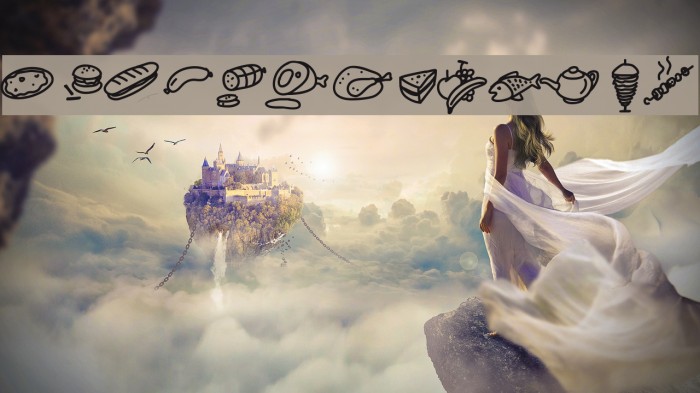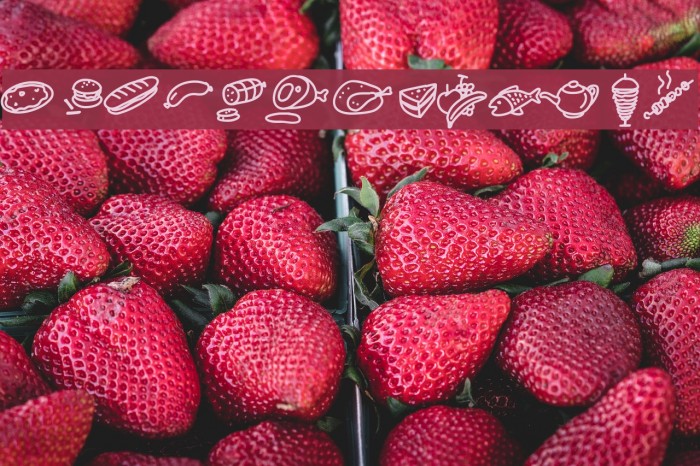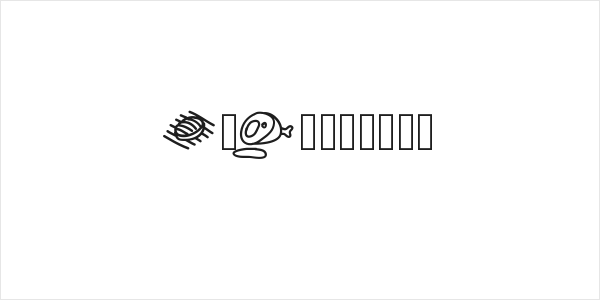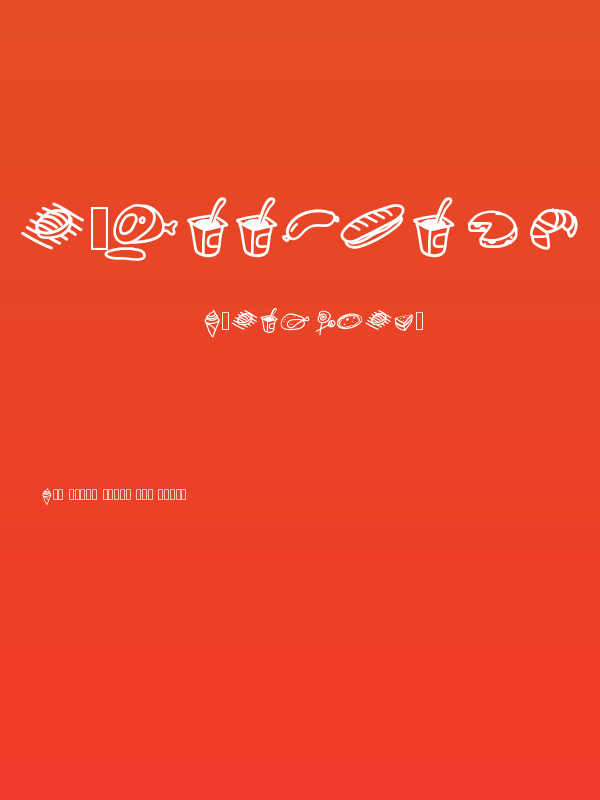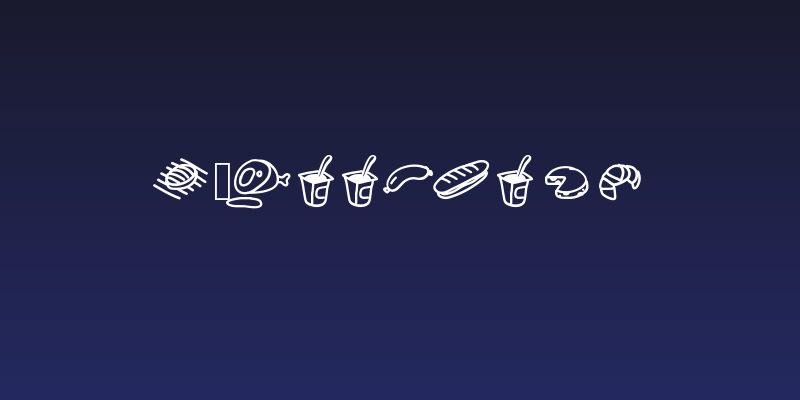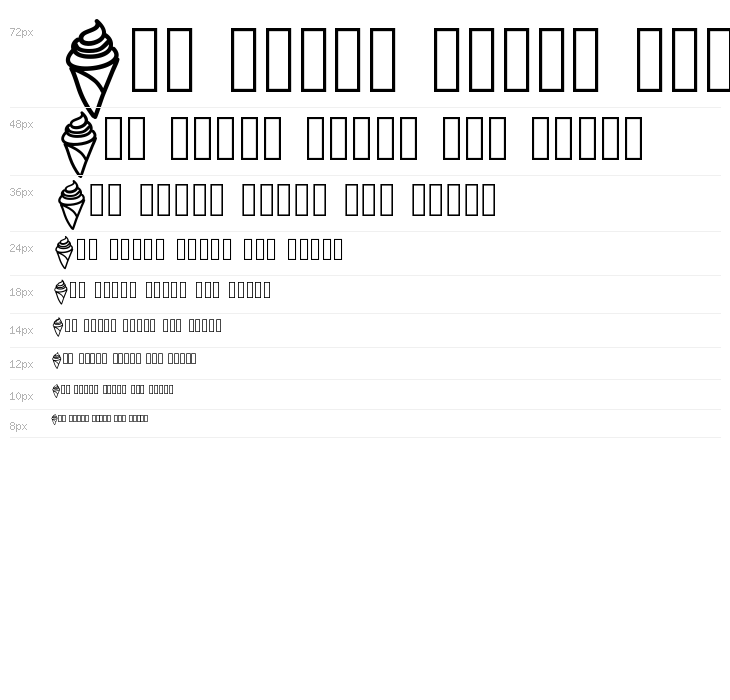
PWFoodcons Font
PWFoodcons Description
This is a decorative font featuring a series of playful and whimsical food-themed icons. Each character is represented by a unique food illustration, ranging from baked goods to beverages. The style is hand-drawn, with a casual and fun aesthetic that adds a touch of creativity and humor. The icons are bold and easily recognizable, making them suitable for projects that require a lighthearted and engaging visual element. The font is perfect for use in food-related designs, menus, or children's projects, where a sense of fun and playfulness is desired.
| Use Case | Logos, Headlines, Decorative elements |
| Proposed Projects | Ideal for restaurant menus, food blogs, children's books, and playful branding projects. |